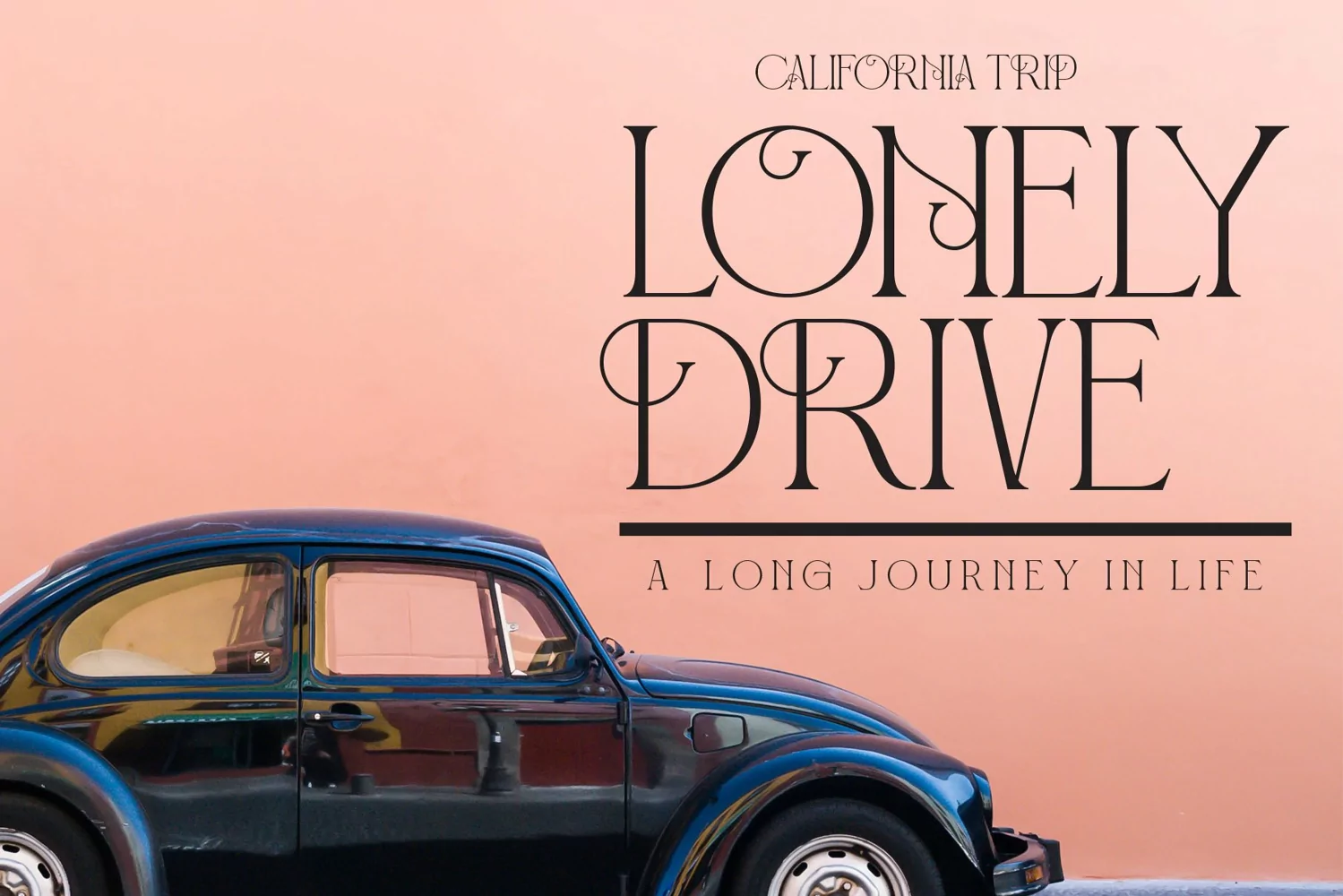
Shorelly
This pair was inspired by beutiful lettering design that i saw on some coffee shop, It was crafted by hand specially to add natural handmade feeling in its brand identity than i make it clean with pentool.
If you need a serif decorative font style, Shorelly font is grat choice for you to make your design authentic and unique.
Shorelly Font is very good looking in logo, movie poster design, youtube tumbnail, labels, product packaging, invitations, advertising and others.